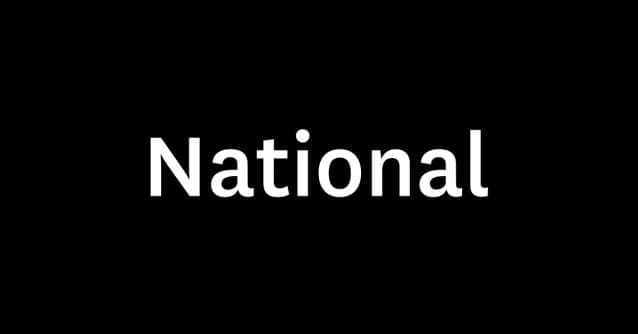
National Font Family
National Font Family, is a deceptively simple sans serif with subtle details that give it a distinctive — but not distracting — personality. It was drawn as a stylistic opposite to Helvetica with looser spacing, unambiguous forms, old-style figures and a “true” italic. The general functional aim is a typeface suitable for long-form reading at small sizes, something classically “typographic”. National’s details are drawn from the era of Akzidenz Grotesk, giving it a humble, workmanlike character with an agreeable tone of voice. While National travels through, and touches on, a lot of historical material, it is designed to thrive in our modern typographic climate.